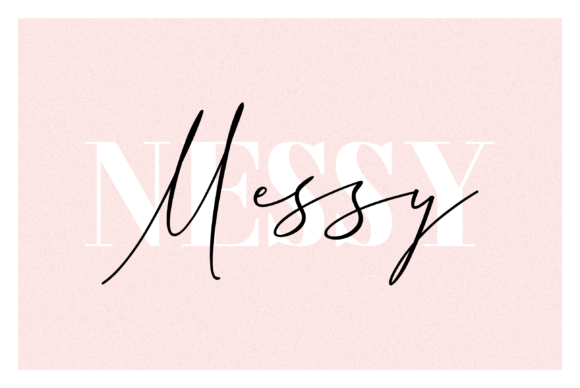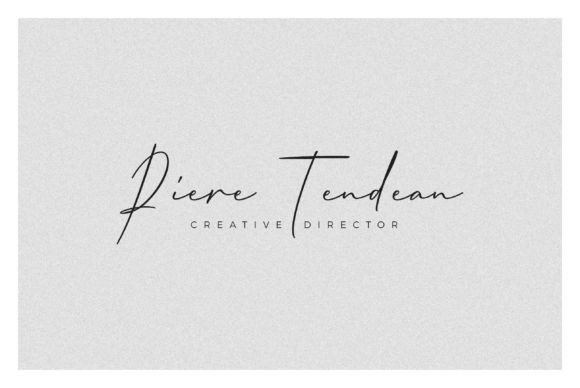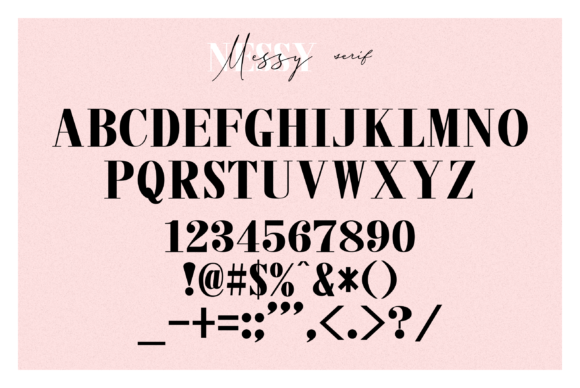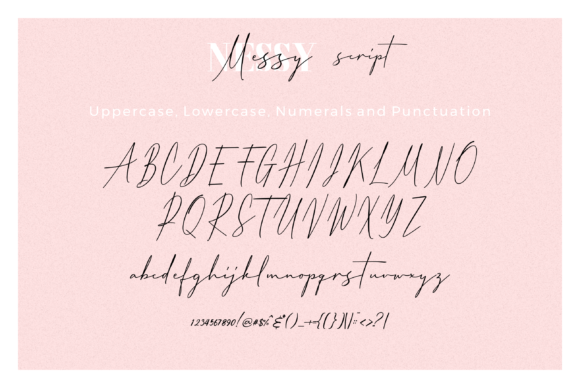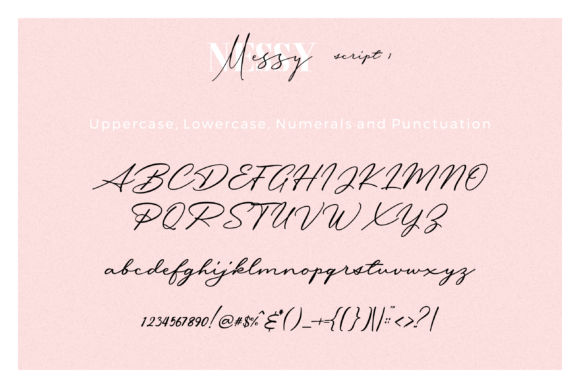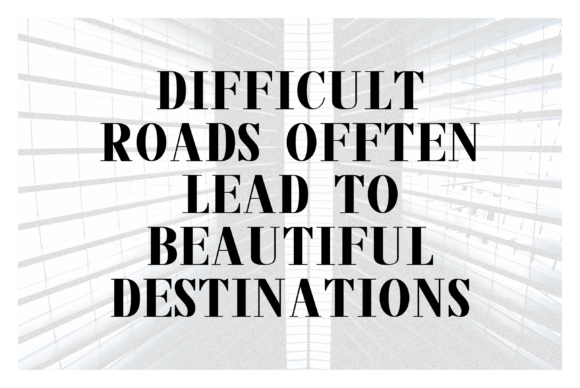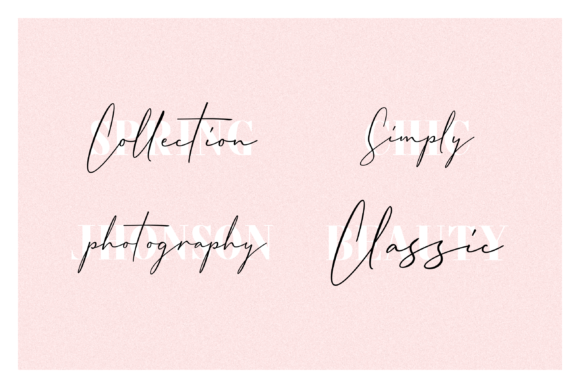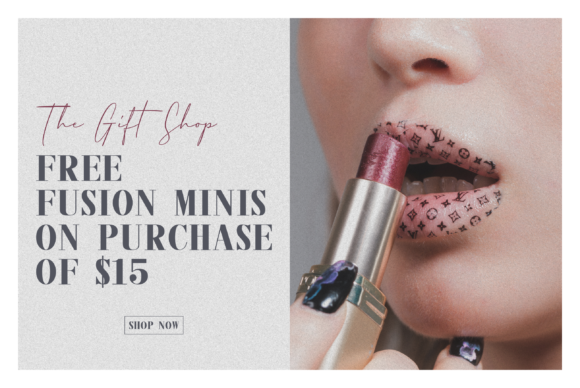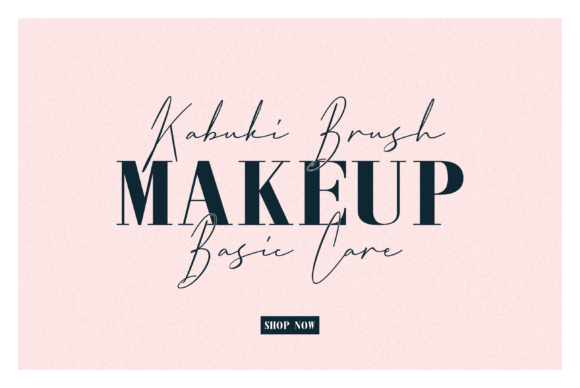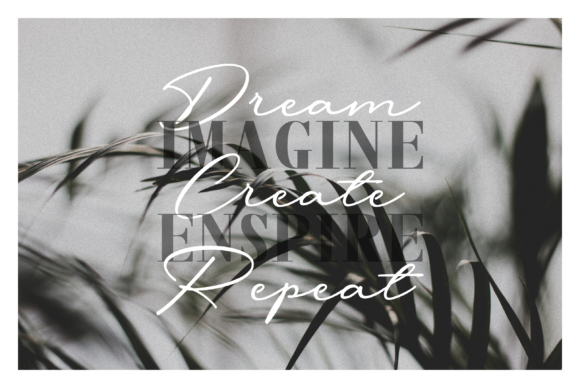
Messy Nessy Duo Font
About Messy Nessy Duo Font
The Messy Nessy is an amazing font duo. It includes two signature versions and one serif version.
It can be used for logos, badges, signs, packaging, headlines, and every other design which needs to look classy.